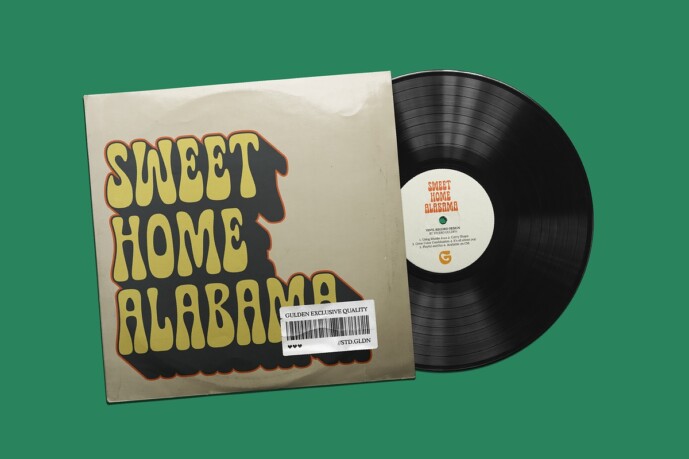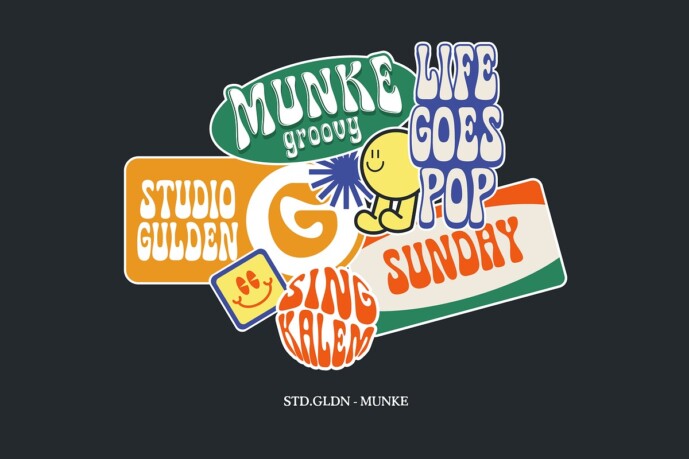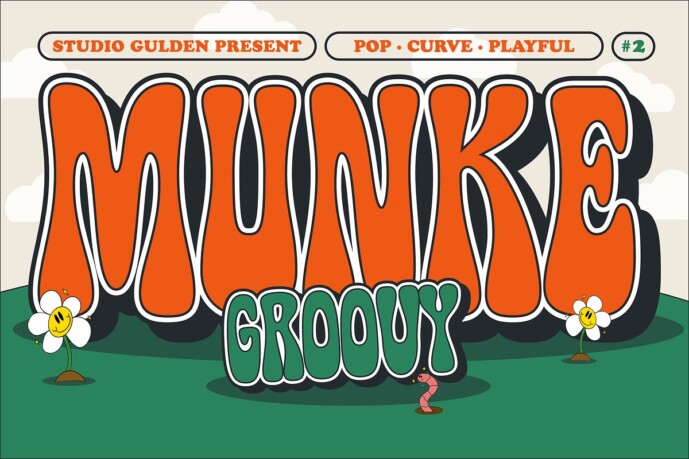
Munke Groovy Font
Munke Groovy Font is a groovy display font with a curvy base shape. Very suitable for you who want to make both vintage and modern pop designs. Include multilingual, uppercase, and lowercase.